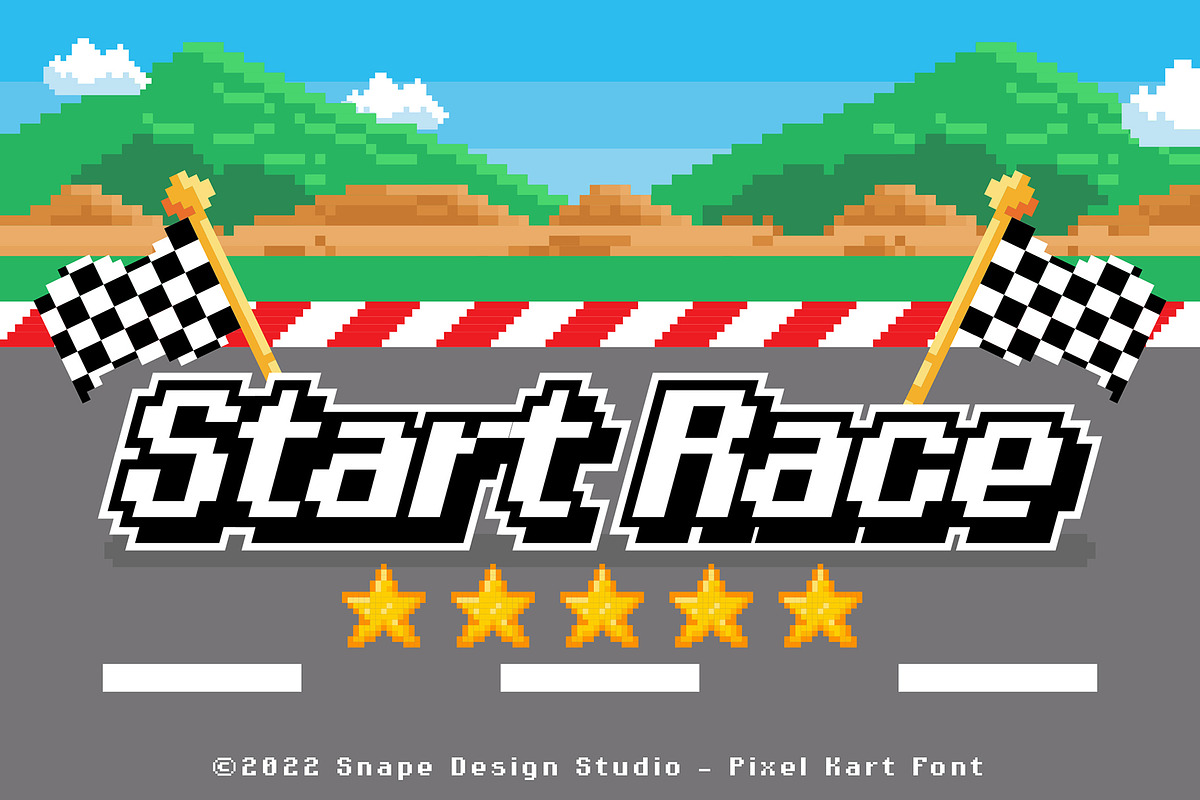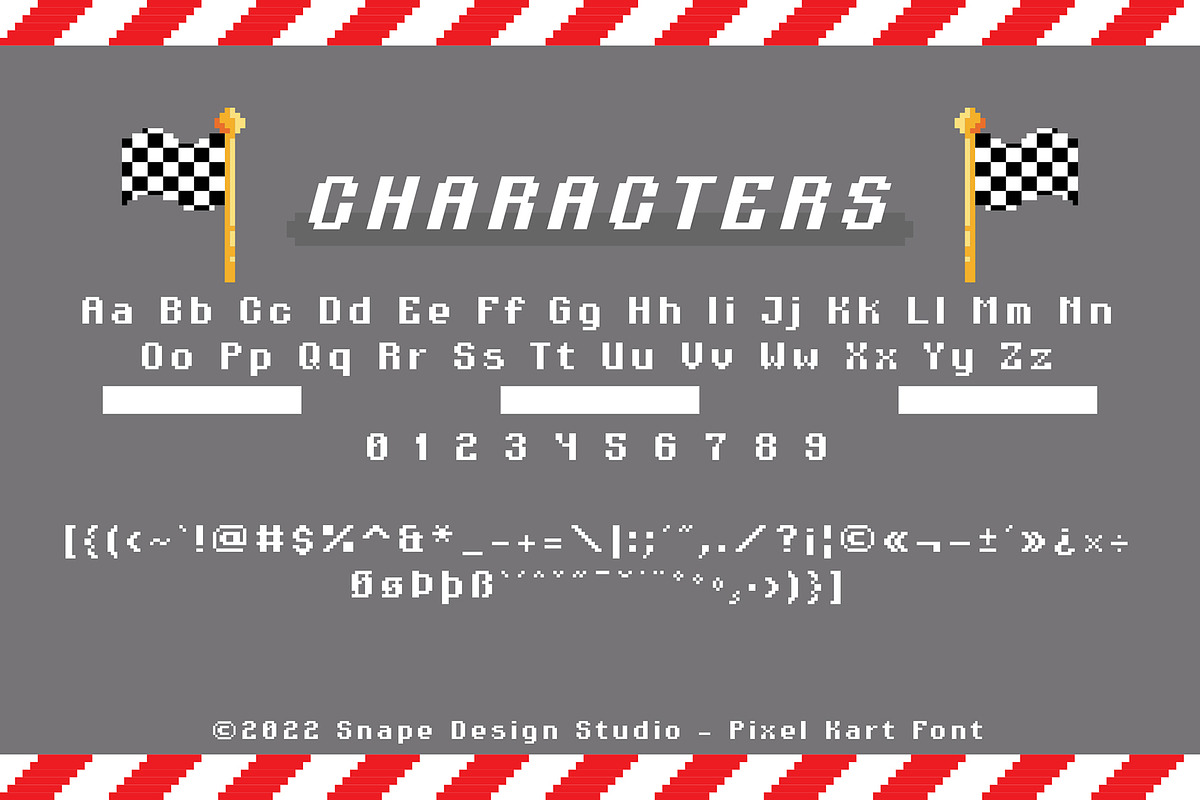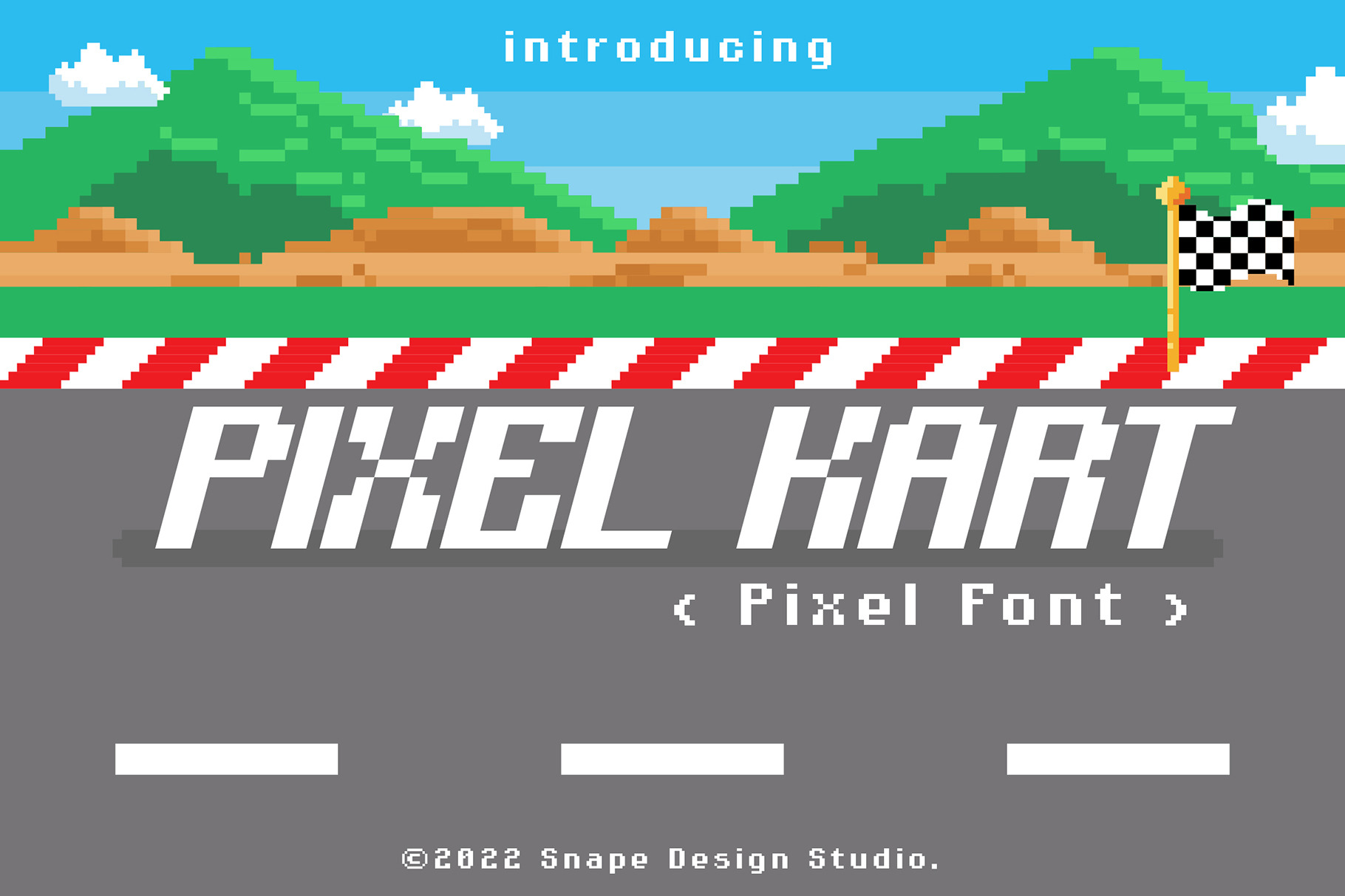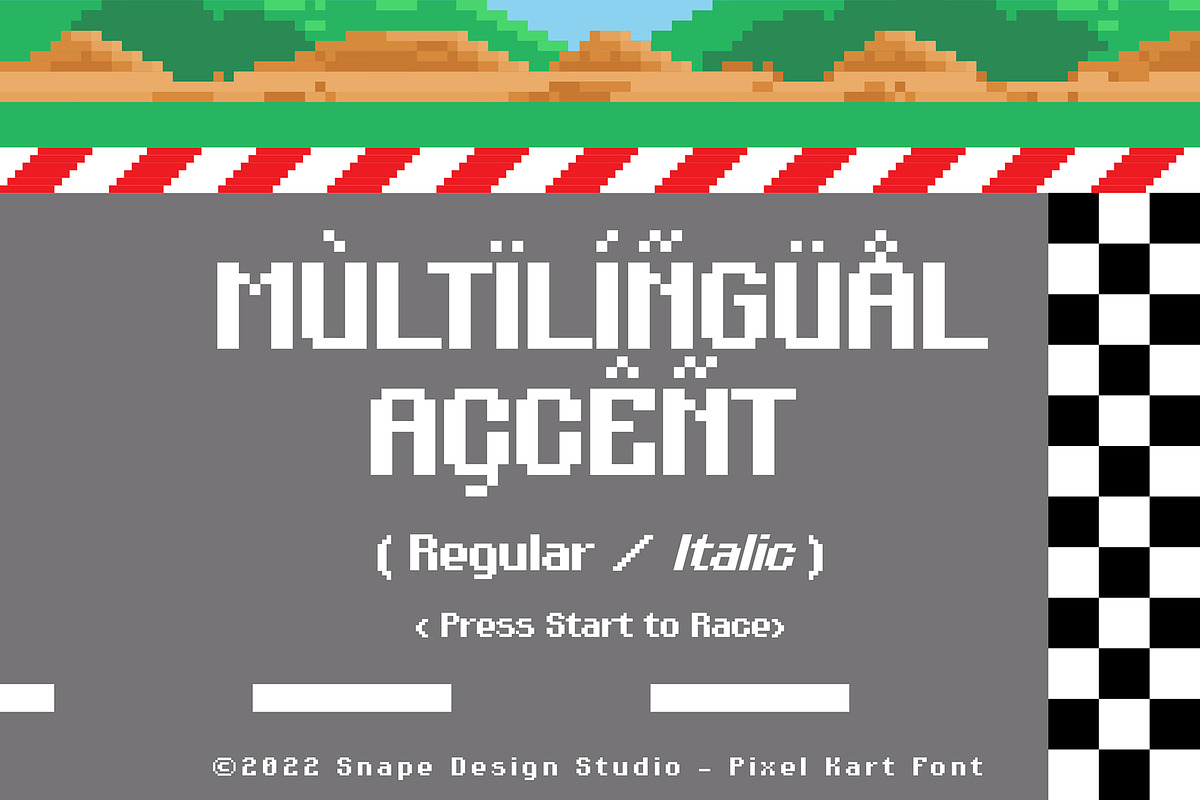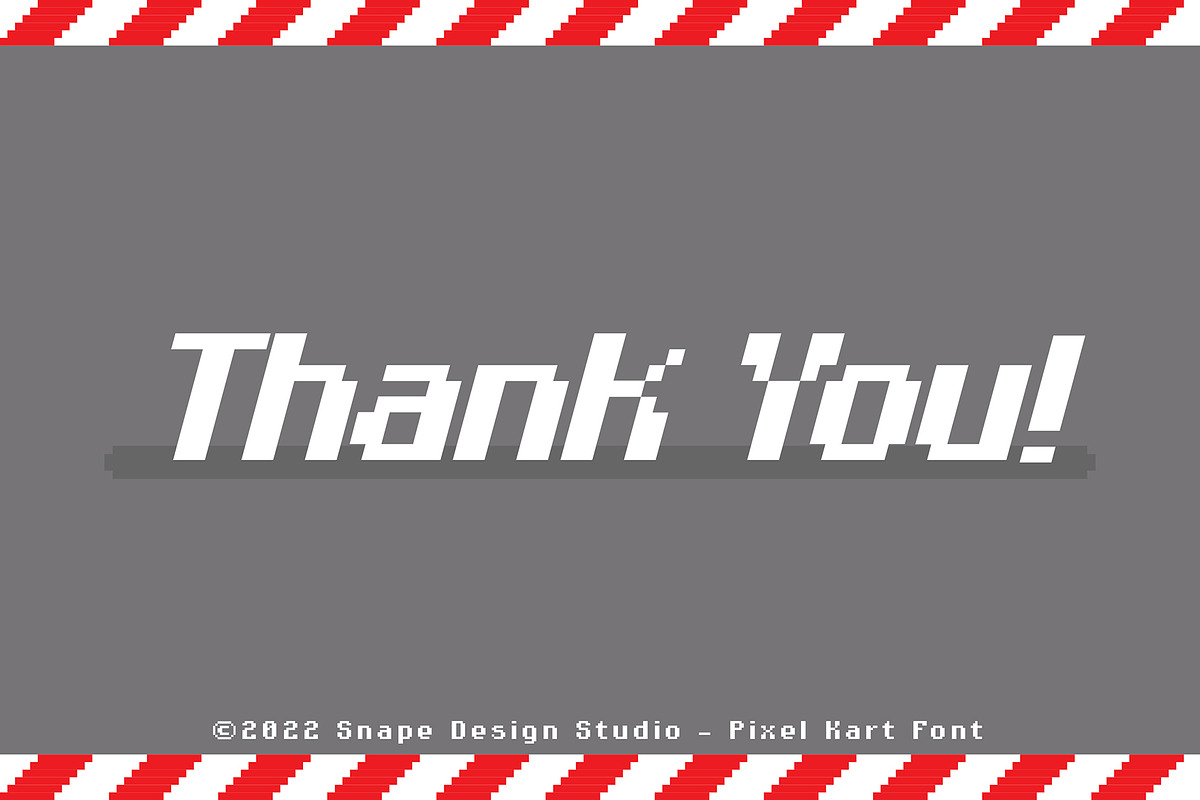
Pixel Kart - Pixel Font
Pixel Kart is a retro pixel font style, perfect for retro game design theme, Also suitable for movie, documenter, film, logo, poster, game, book cover, headlines, title and many more projects. Add this font to your creative ideas and notice how it will make them stand out!